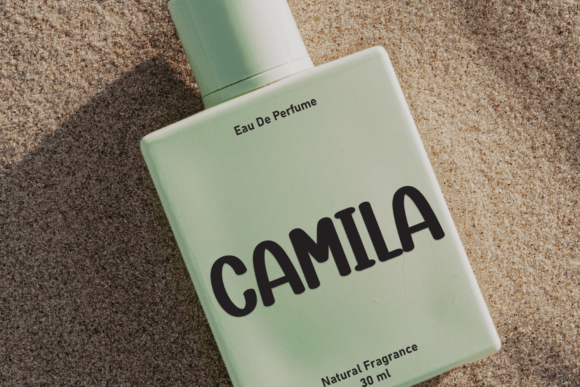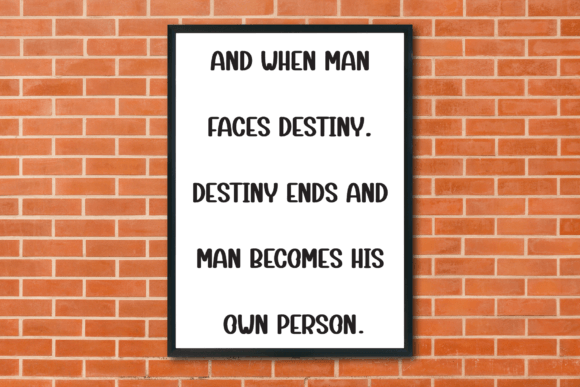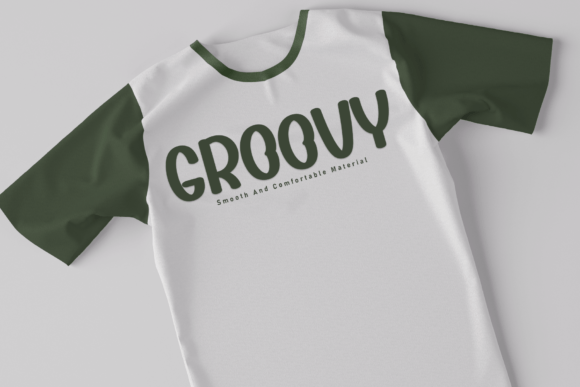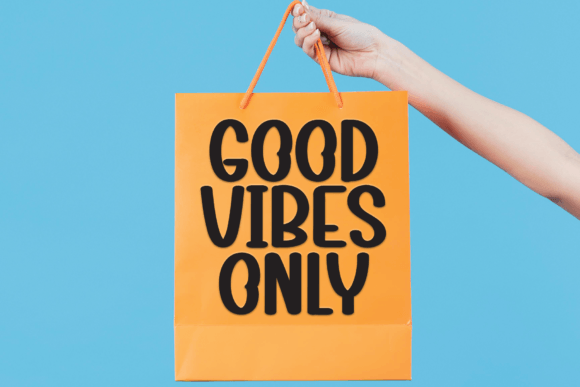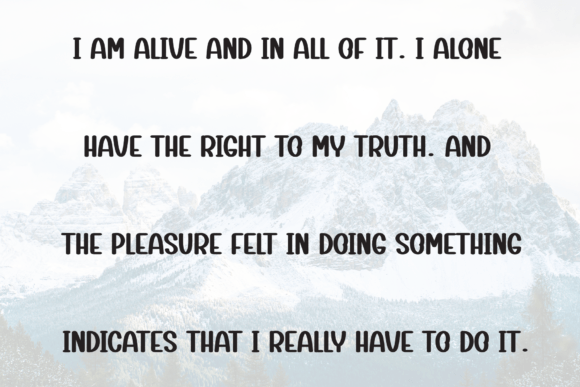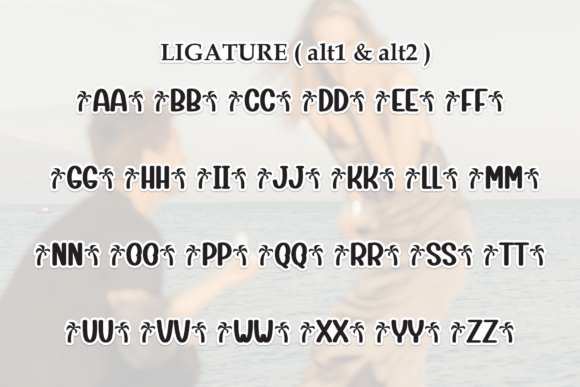
Introducing Beach Surprise Font: The Perfect Addition to Your Design Arsenal
Are you tired of using the same old fonts in your designs? Look no further! Beach Surprise Font is a sweet and friendly handwritten display font that’s sure to add a fun touch to your projects. In this article, we’ll dive into the features and benefits of Beach Surprise Font, and explore how you can use it to take your designs to the next level.
What is Beach Surprise Font?
Beach Surprise Font is a beautiful, handwritten display font that’s perfect for creating eye-catching designs. Its sweet and friendly style makes it ideal for writing wedding invitations, cards, or any other design that might need a fun touch. The font’s playful and carefree vibe is sure to capture the attention of your audience and leave a lasting impression.
Key Features of Beach Surprise Font
- Cute and Fun: Beach Surprise Font is designed to add a touch of whimsy and fun to your designs. Its playful style is perfect for creating designs that are lighthearted and engaging.
- Handwritten: The font’s handwritten style gives it a personal and unique touch. It’s perfect for creating designs that feel friendly and approachable.
- Display Font: Beach Surprise Font is a display font, making it perfect for headlines, titles, and other design elements that need to stand out.
- Versatile: The font is versatile and can be used for a wide range of design projects, from wedding invitations to social media graphics.
Benefits of Using Beach Surprise Font
So, why should you use Beach Surprise Font in your designs? Here are just a few benefits:
- Adds a Personal Touch: The font’s handwritten style adds a personal touch to your designs, making them feel more unique and special.
- Creates a Fun and Playful Vibe: Beach Surprise Font is perfect for creating designs that are fun and playful. It’s ideal for designs that need to capture the attention of your audience and leave a lasting impression.
- Easy to Read: Despite its playful style, Beach Surprise Font is easy to read, making it perfect for designs that need to communicate a message.
- Time-Saving: With Beach Surprise Font, you can create professional-looking designs in no time. The font is easy to use and comes with a range of features that make designing a breeze.
Design Ideas Using Beach Surprise Font
Beach Surprise Font is versatile and can be used for a wide range of design projects. Here are a few ideas to get you started:
- Wedding Invitations: Use Beach Surprise Font to create beautiful and unique wedding invitations.
- Social Media Graphics: Use the font to create eye-catching social media graphics that capture the attention of your audience.
- Cards and Postcards: Use Beach Surprise Font to create personalized cards and postcards.
- Logos and Branding: Use the font to create a fun and playful logo or branding elements.
Beach Surprise Font is a sweet and friendly handwritten display font that’s perfect for adding a fun touch to your designs. Its playful style, versatility, and ease of use make it an ideal choice for designers and crafters. Whether you’re creating wedding invitations, social media graphics, or logos, Beach Surprise Font is sure to take your designs to the next level.